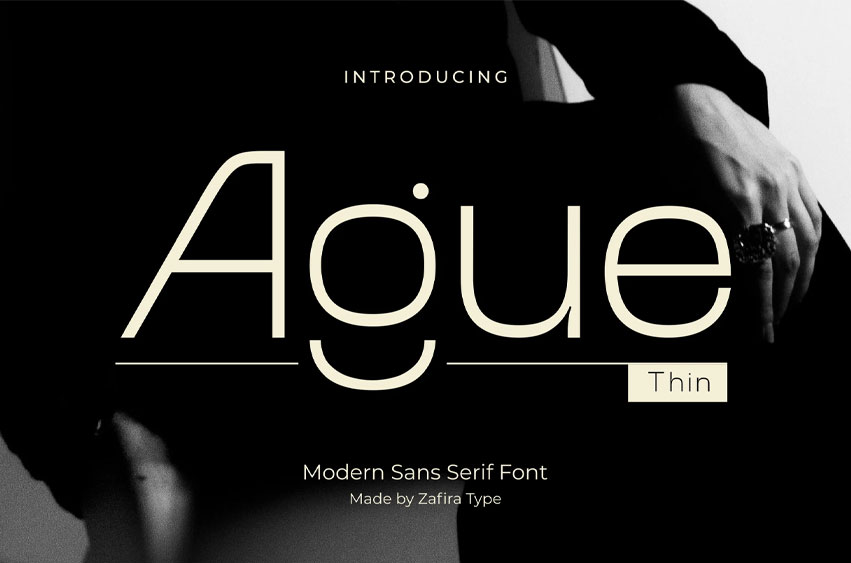
Ague Thin Font
Ague Thin Font is a clean and modern sans serif typeface designed with simplicity and elegance in mind. Ague Thin offers a light, refined appearance perfect for contemporary design needs.
With its balanced proportions, sharp lines, and minimalist details, Ague Thin is ideal for branding, editorial layouts, UI/UX design, and professional presentations. Whether used in print or on screen, Ague delivers clarity and sophistication with a subtle modern touch.